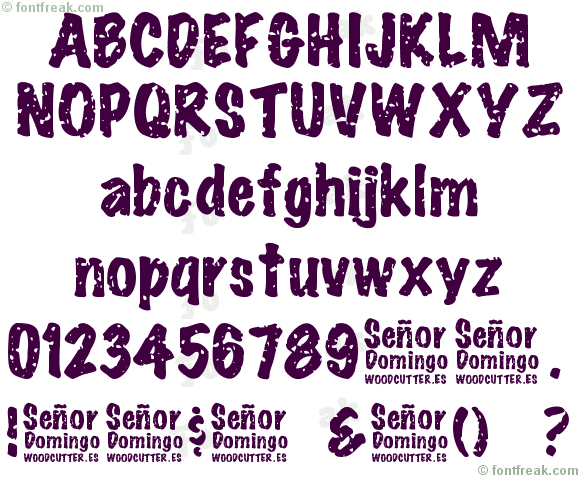
Señor Domingo
Señor Domingo, designed by woodcutter Manero, is a captivating display typeface that exudes a rustic charm, making it an excellent choice for a variety of creative projects. This font showcases a unique style characterized by its bold, textured strokes that appear as if they have been hand-carved from wood, giving it a distinctive artisanal feel. The uneven weight and slight contrast in the letterforms add a sense of authenticity, while the generous spacing between characters enhances readability, making it suitable for both titles and body text.
The Señor Domingo font is particularly well-suited for a range of applications, including wedding invitations where its unique character can evoke a whimsical or vintage vibe. It also shines in restaurant menus, providing a warm and inviting aesthetic that complements a rustic dining experience. Movie posters can benefit from its striking presence, helping to capture attention and convey a thematic essence. Additionally, it serves beautifully in branding projects for small businesses looking to convey a handmade, personal touch in their marketing materials.
Targeted at graphic designers, small business owners, and content creators, Señor Domingo invites creativity and expression. Its versatility allows users to incorporate it into various design landscapes, whether for digital or print media.
What truly sets the Señor Domingo font apart is its ability to blend rustic charm with modern functionality. The handcrafted appearance, combined with its free availability, makes it an invaluable addition to any designer's toolkit. For those looking to enhance their projects with a touch of character, the Señor Domingo font free download is an opportunity not to be missed.